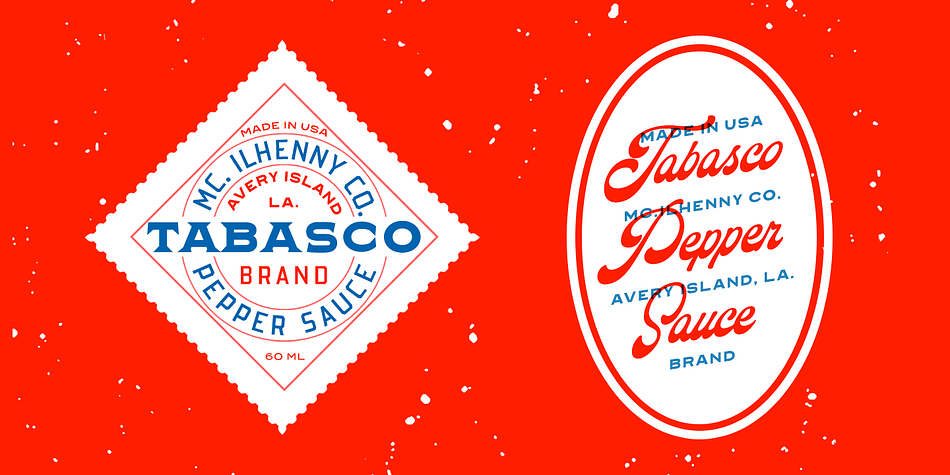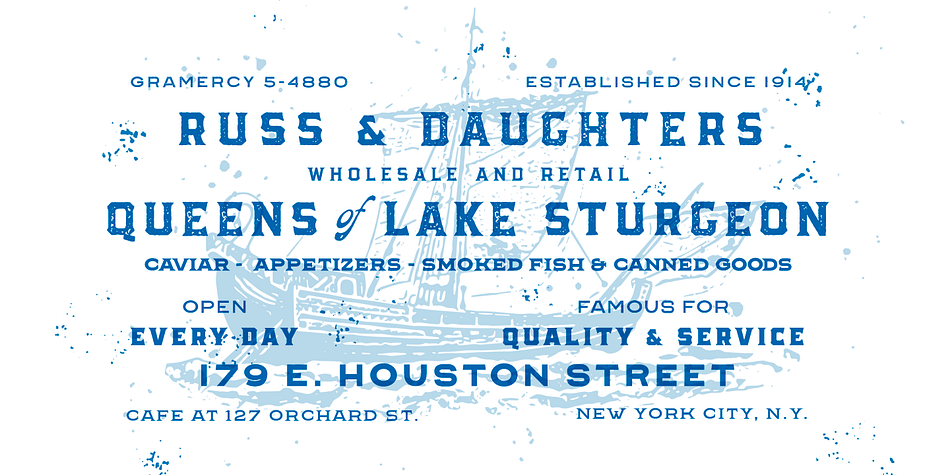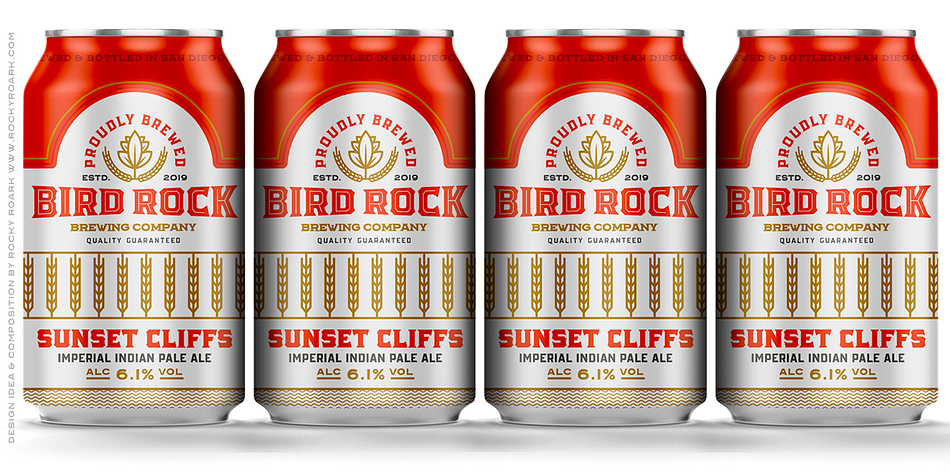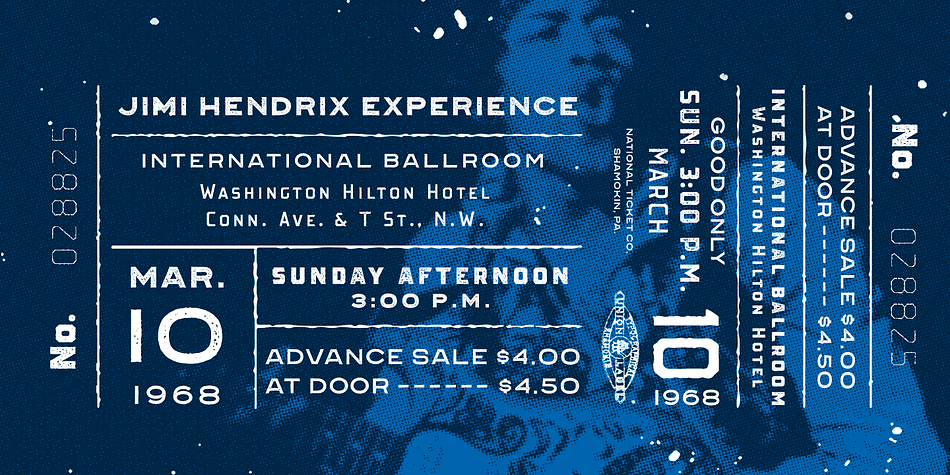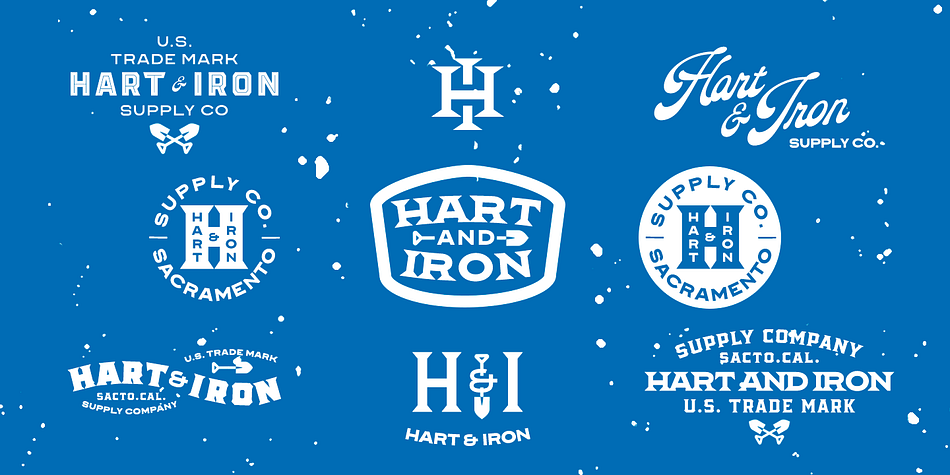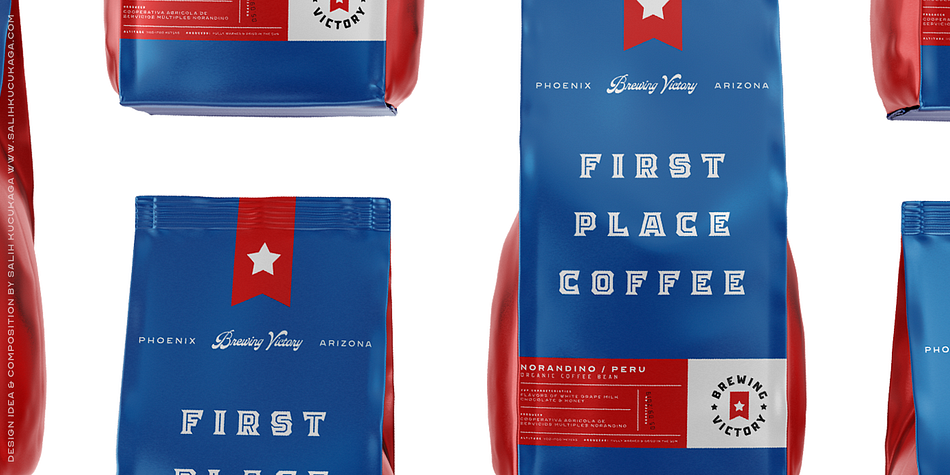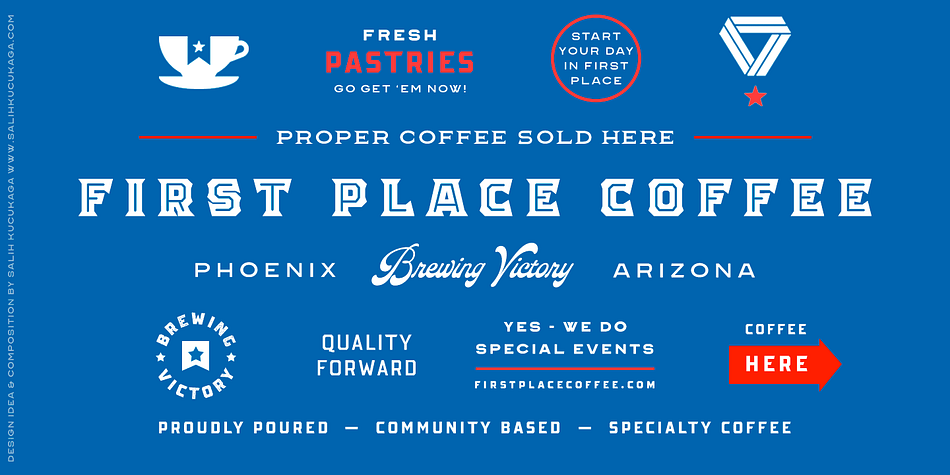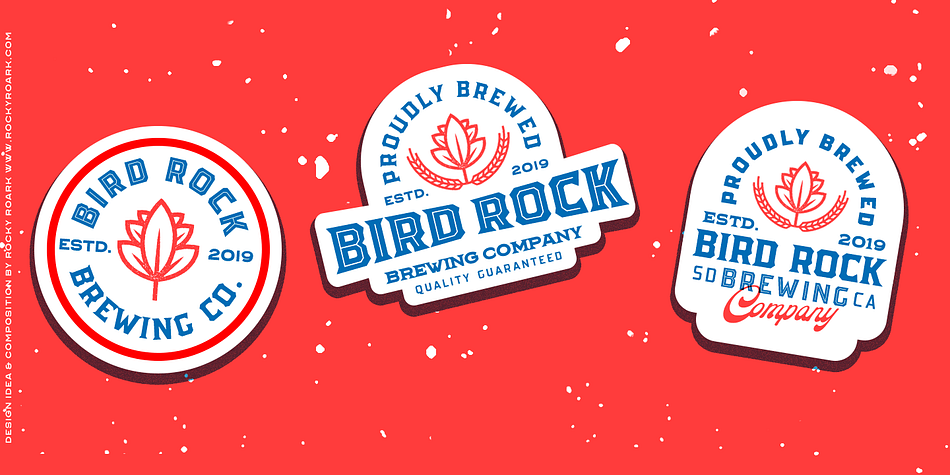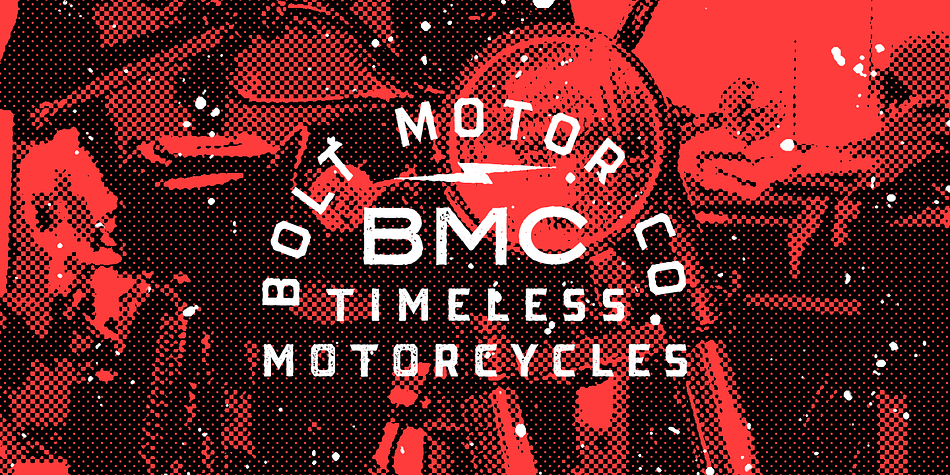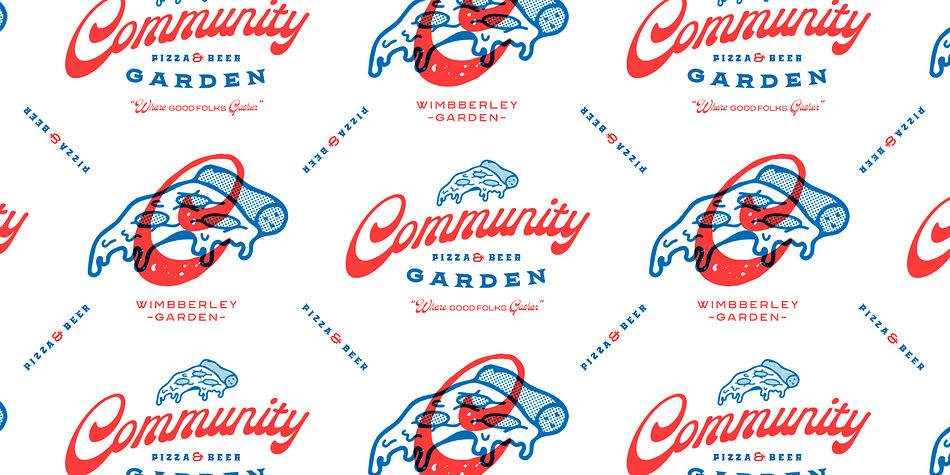
Designed by Pavel Korzhenko, The Pretender Collection is a multiple classification font family. This typeface has thirty-four styles and was published by Vintage Voyage Design.
Proudly Introducing you my new font collection – The Pretender.
This collection was born and inspired by American sign painting typography and vintage package design. Wide range of styles for a wide range of use. This collection gives you awesome vintage look effect, which one will add the hand-touch feeling for your project. Light, Regular, Medium and Bold widths goes as Sans and Serifs and Normal or Expanded! And, of course, vintage candy Script! But that’s not all – Every font comes as a Clear and Pressed style! So, you get a 34 authentic typefaces!
Styles | Display Sans, Display Serif, Script, Serif, Western, Wood Type |
Designer | Pavel Korzhenko |